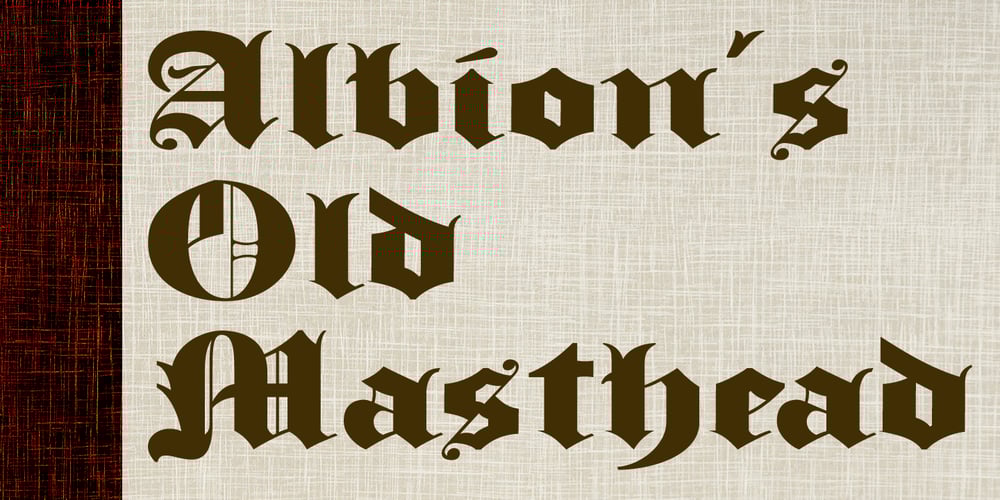
Albion’s Old Masthead Font Family was designed by Paul James Lloyd and published by Greater Albion Typefounders. Albion’s Old Masthead contains 1 styles and family package options. Albion’s old Masthead is inspired by traditional newspaper mastheads. A heavy Black Letter which brooks no argument, and can be emphatic and refined (emphatically refined?) at the same time. Ideal for signage with a ‘period’ feel, book covers, posters and banners. Why not add something solid to your latest project…